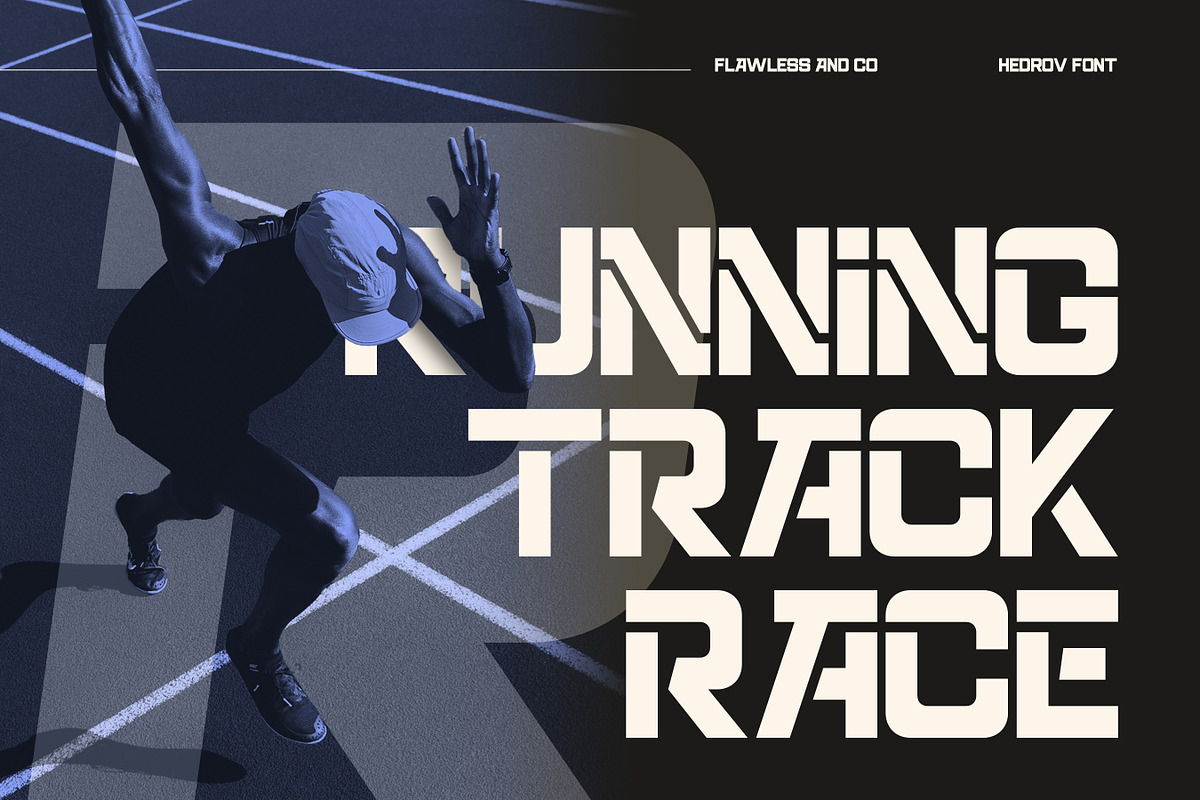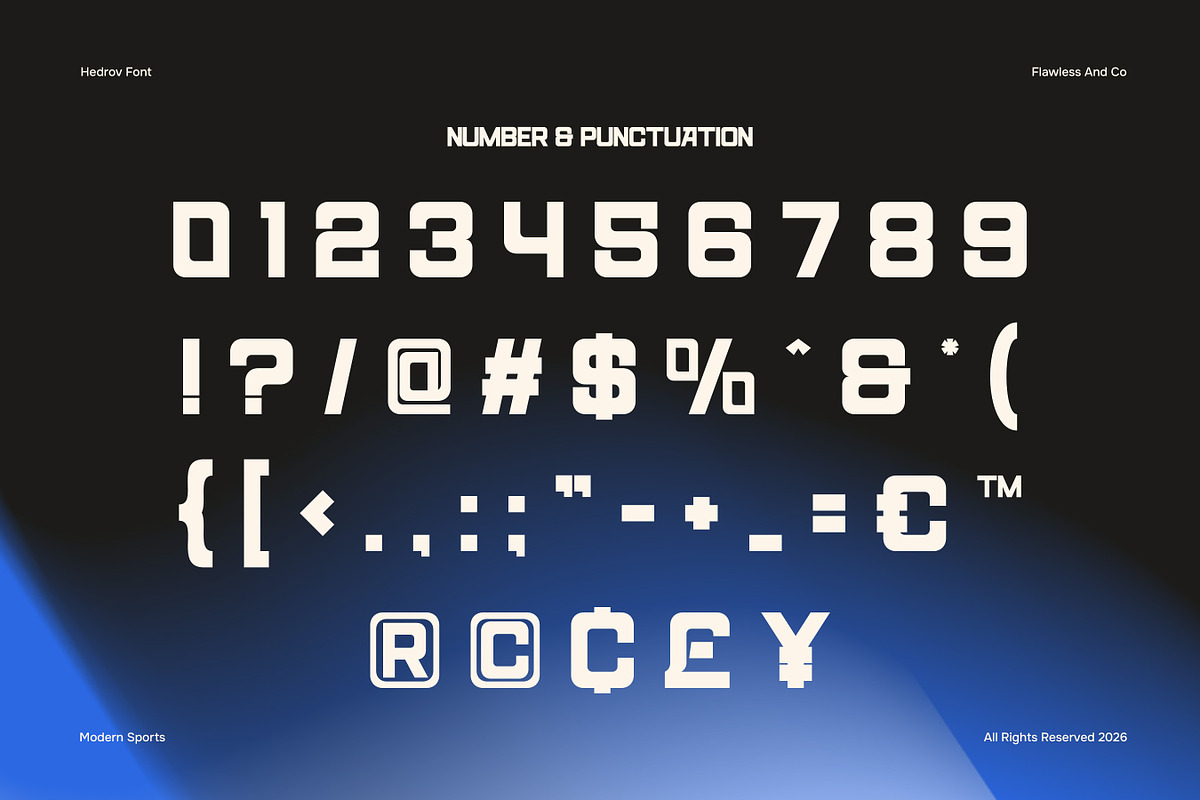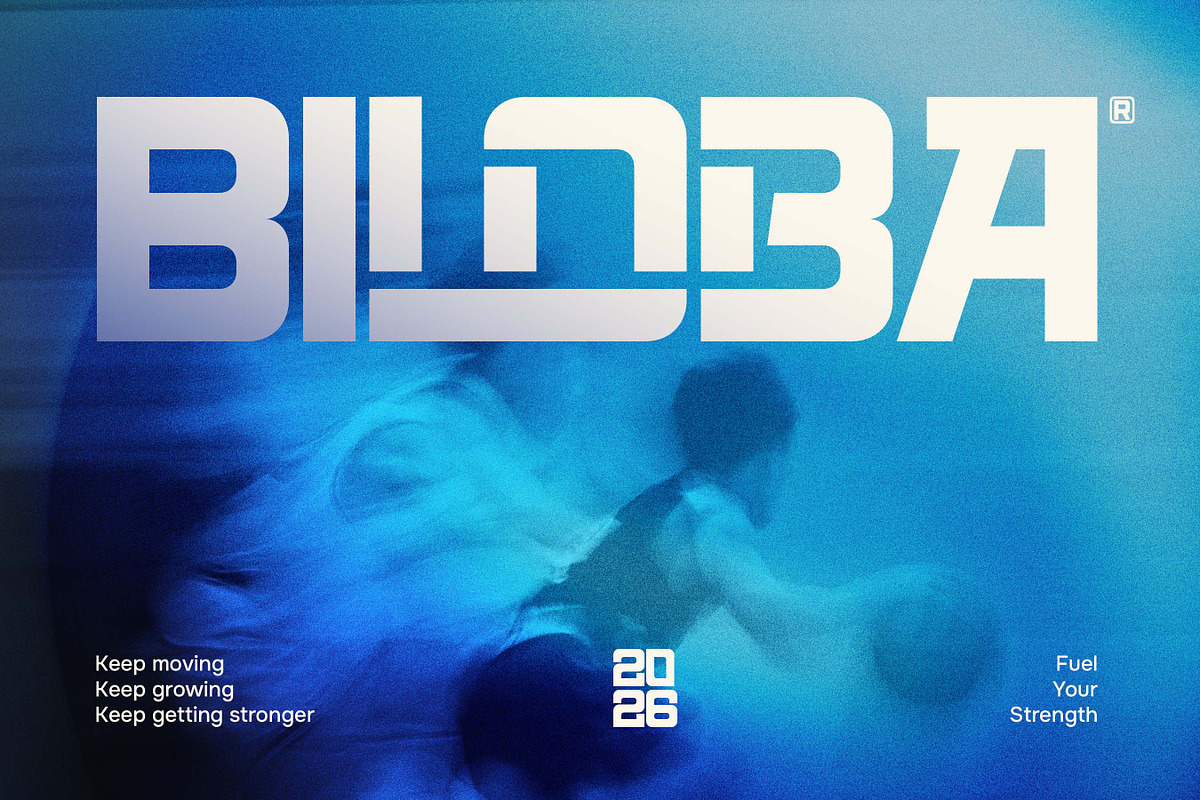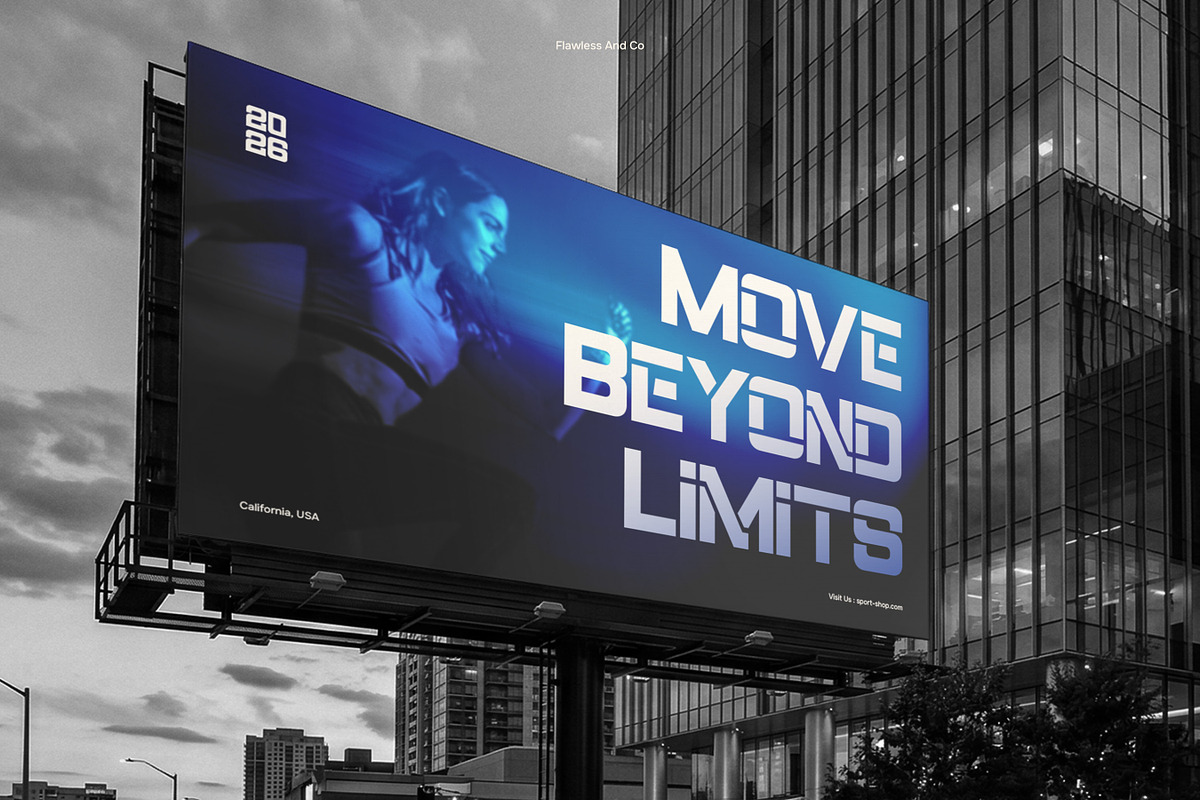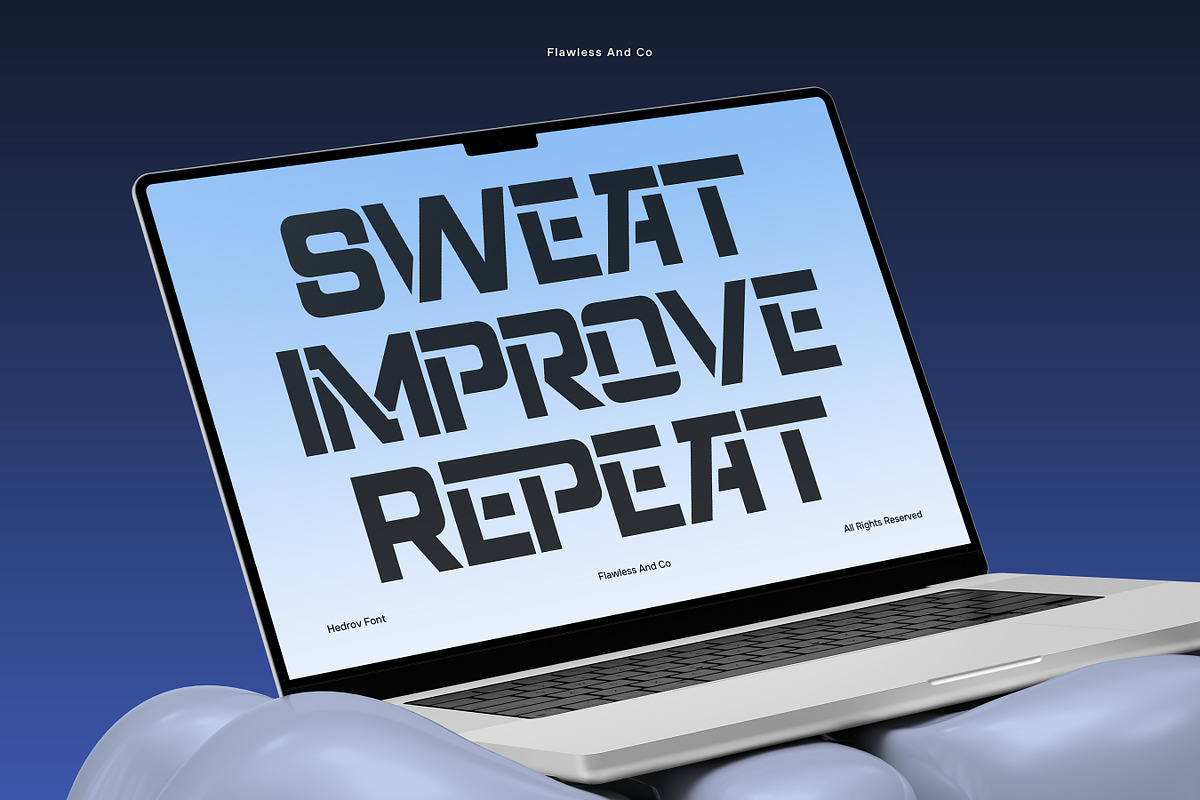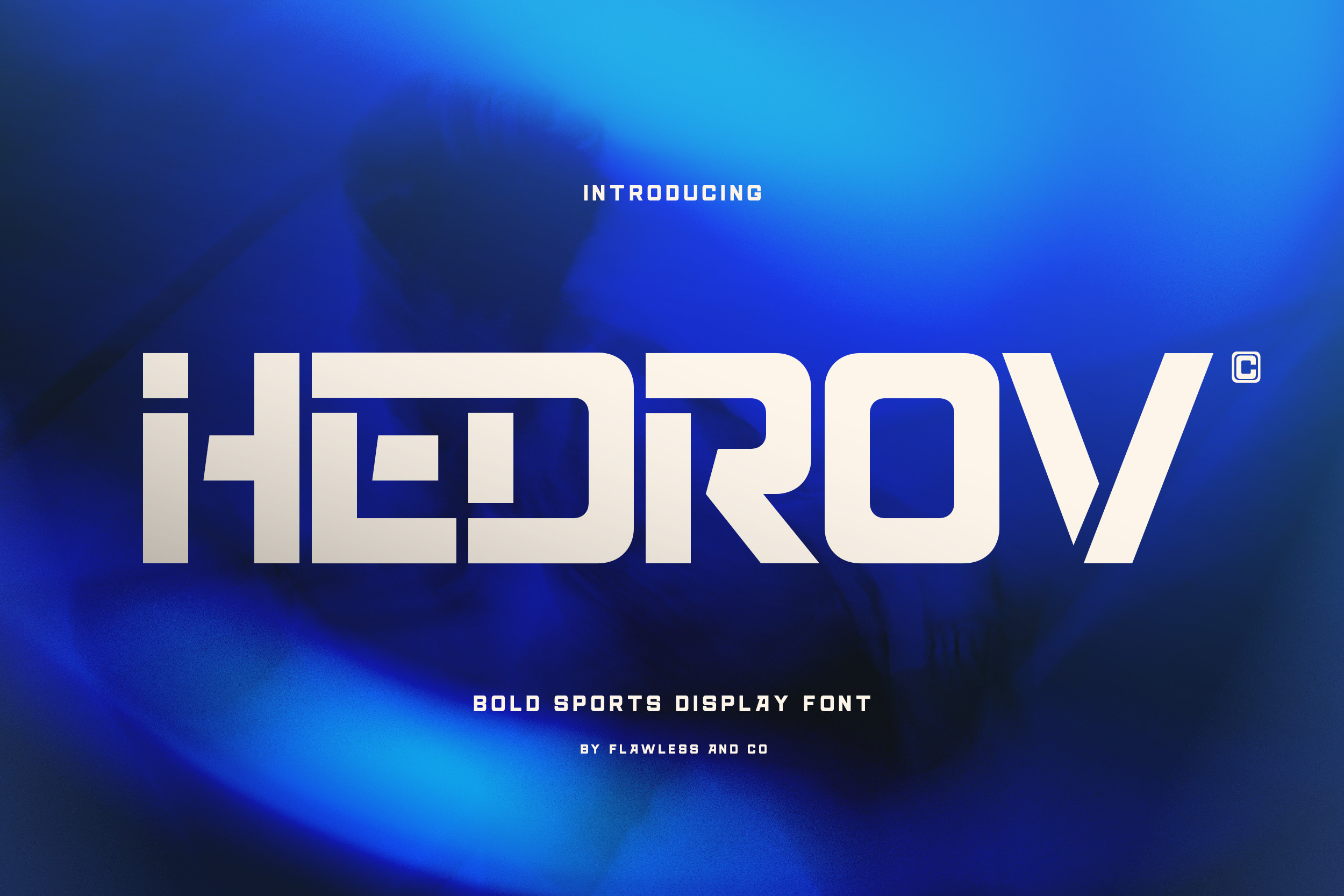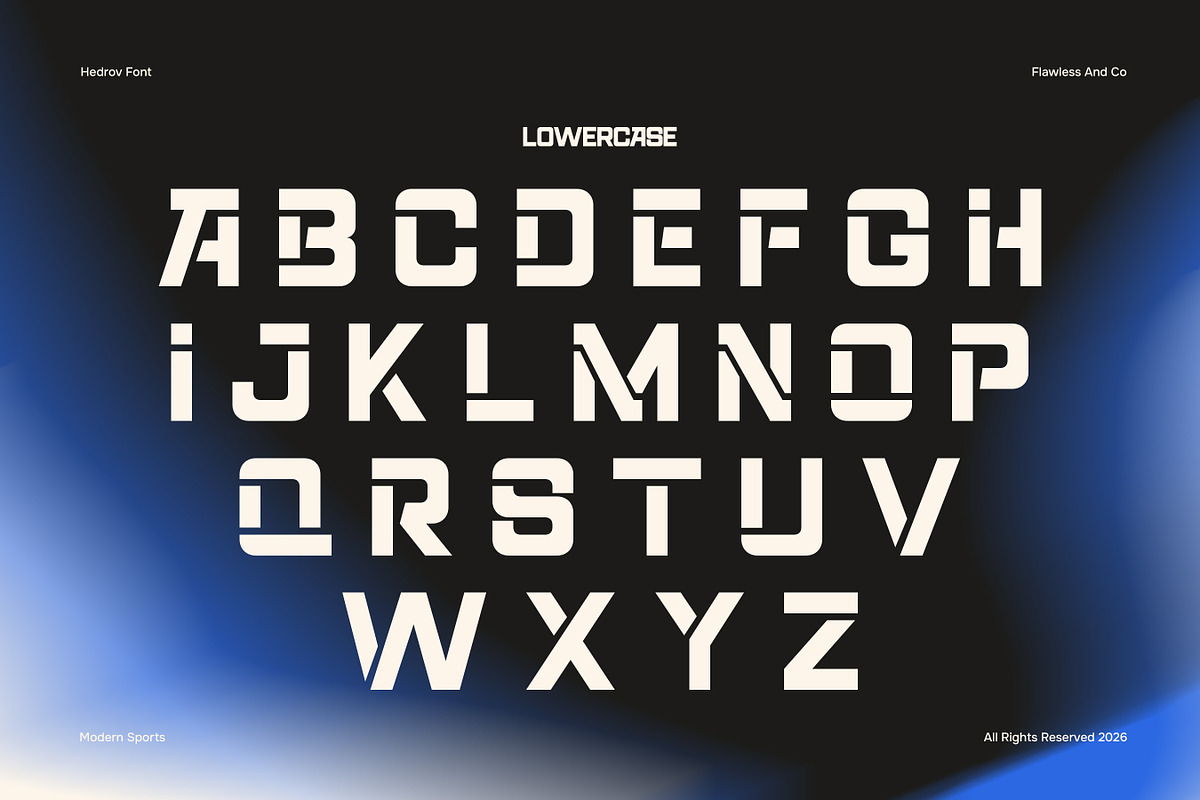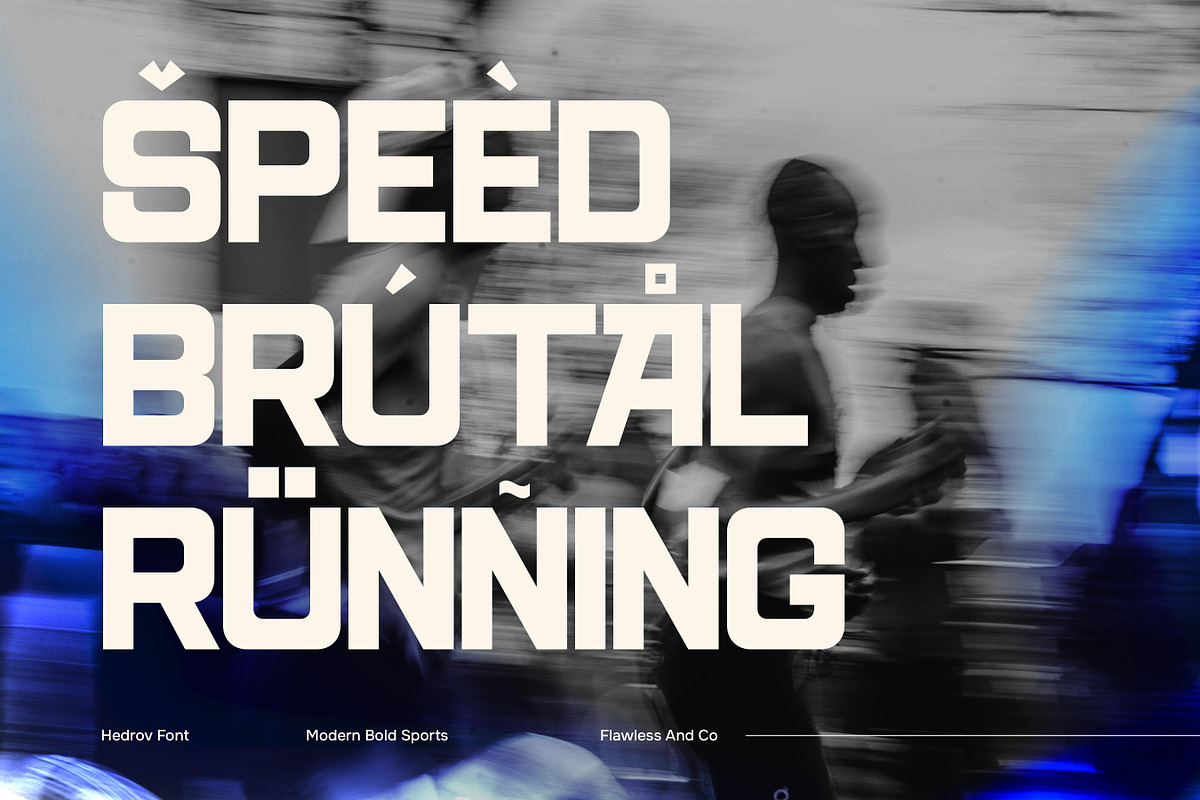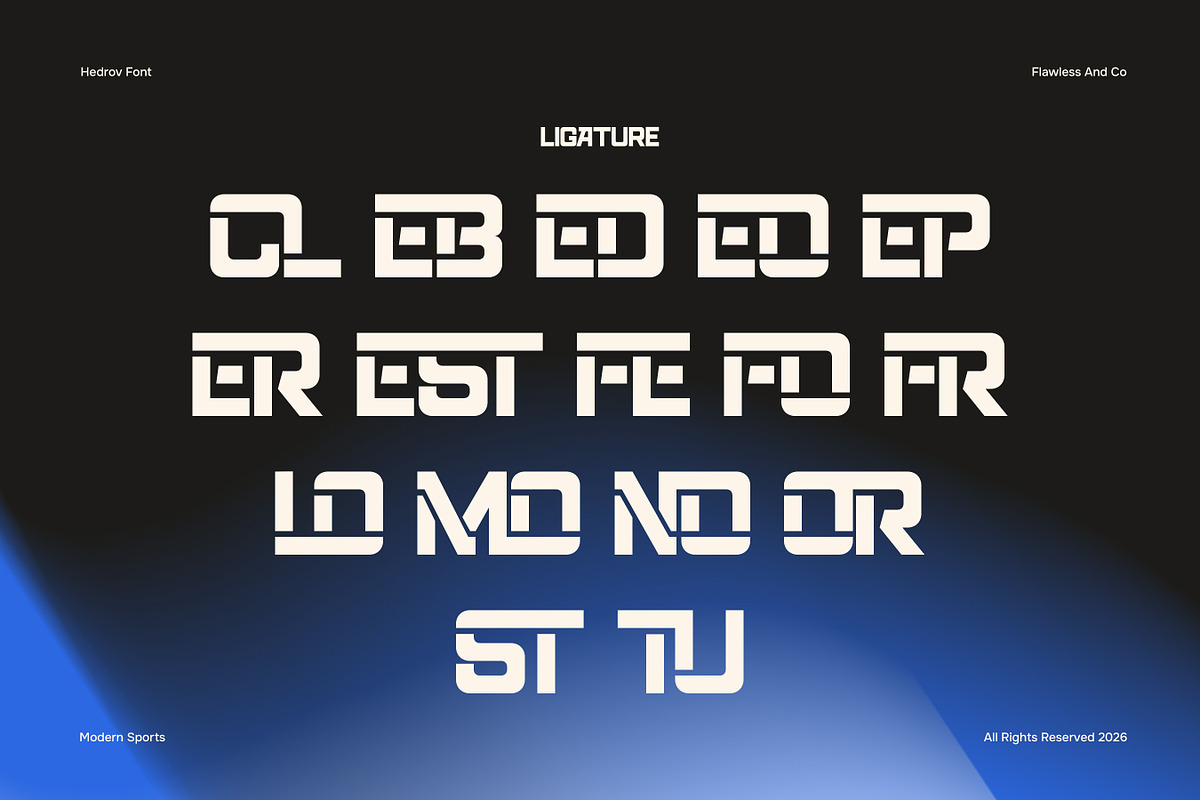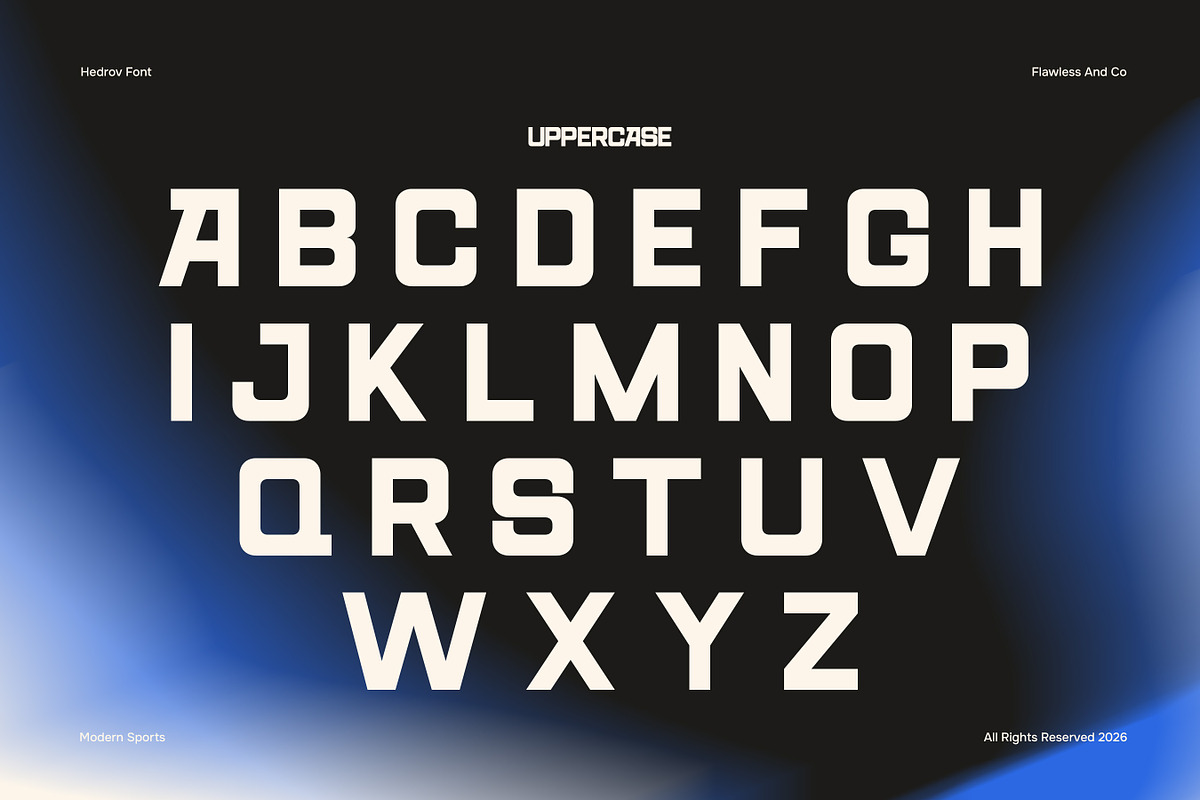
Hedrov - Bold Sports Display Font
Hedrov is a bold sports display font designed to bring a powerful, dynamic, and competitive character to your designs. Featuring strong geometric shapes, sharp angles, and distinctive letterforms, Hedrov creates an energetic visual impact that immediately grabs attention.
With its bold and futuristic appearance, Hedrov is made to communicate speed, strength, and confidence. Its solid construction and unique details give every word a strong presence, making it especially effective for headlines, logos, team identities, and other high-impact designs.
Alternates & Ligatures